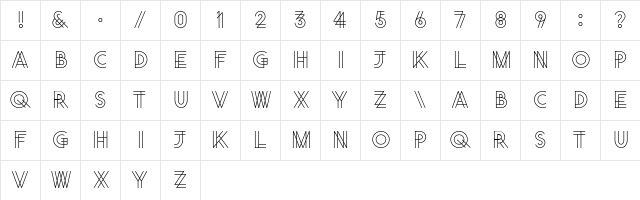
Twin Mo1 Regular
Design Context for Twin Mo1 Typeface
Twin Mo1 is a composed and adaptable typeface that performs quietly and consistently across a wide range of design contexts.